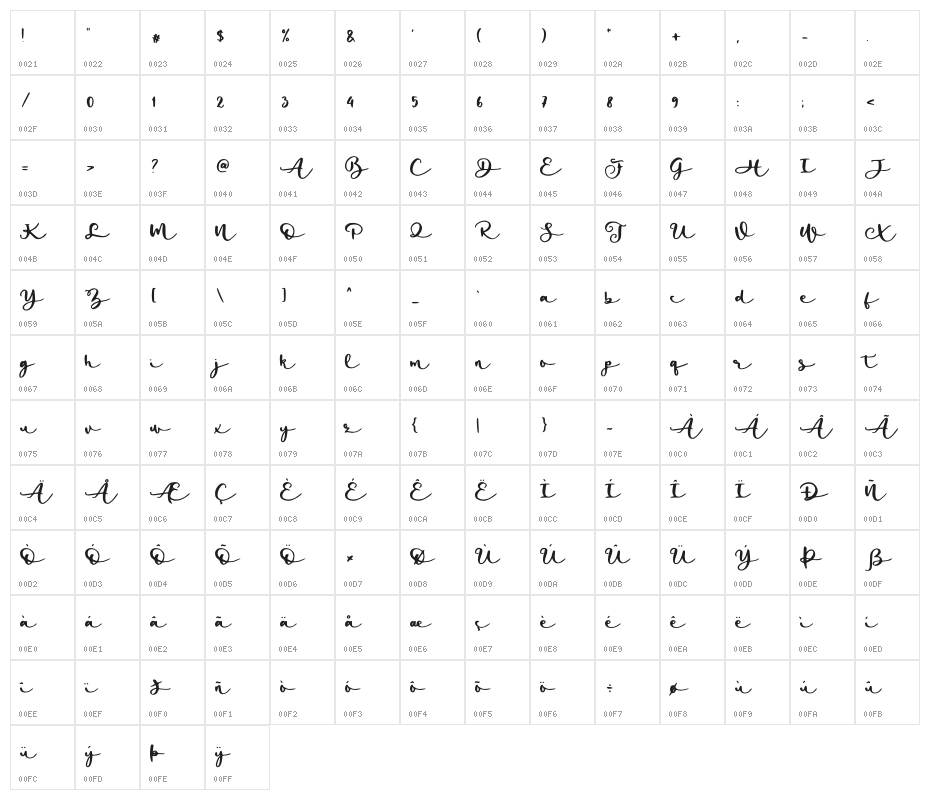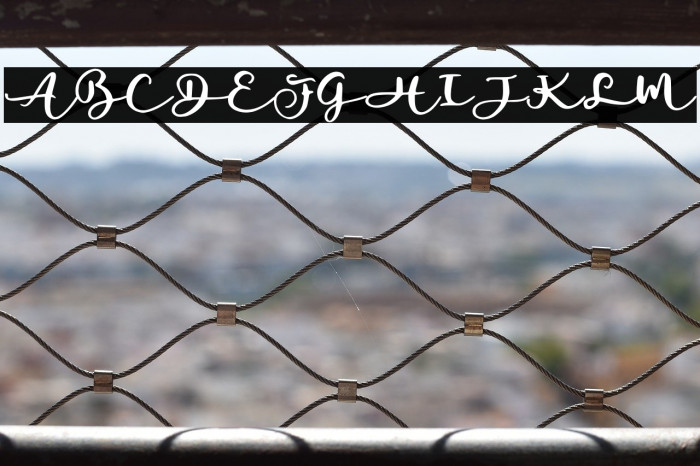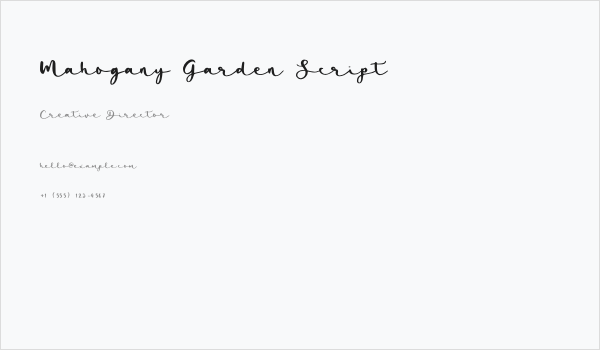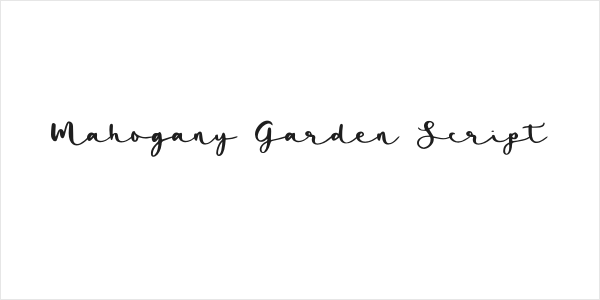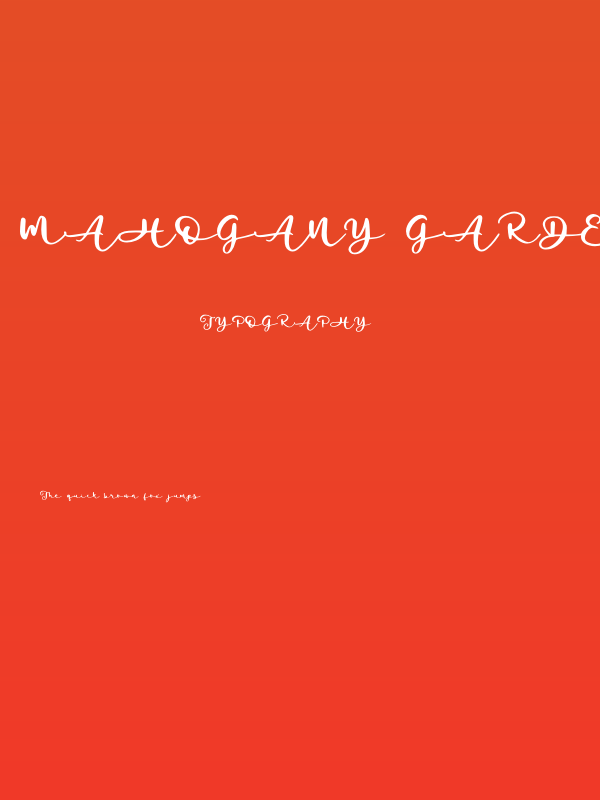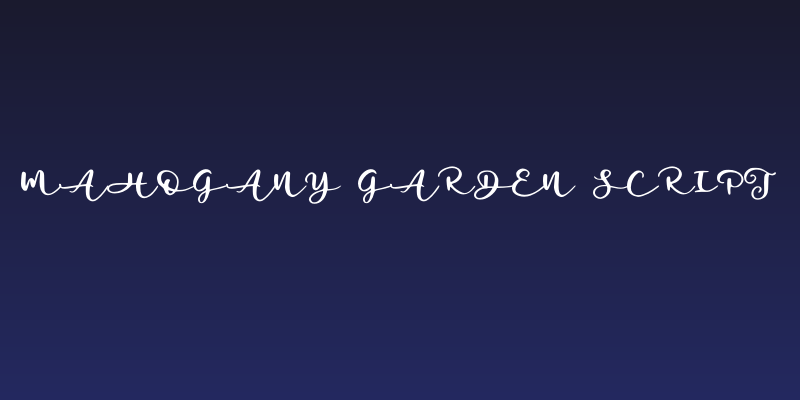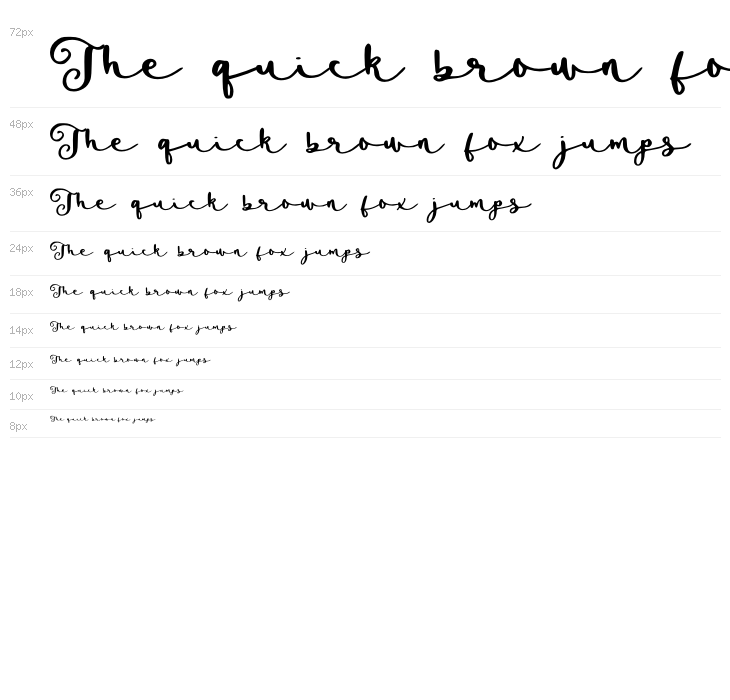
Mahogany Garden Script Font
Mahogany Garden Script Description
A flowing, cursive script font with a handwritten feel, featuring smooth, connected letters and a casual elegance.
| Use Case | Logos, Headlines, Invitations |
| Proposed Projects | Invitations, greeting cards, personal branding. |